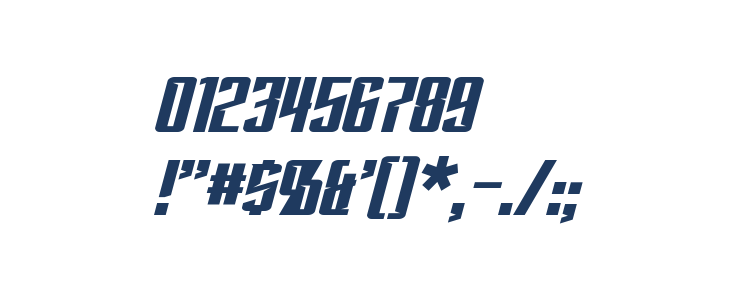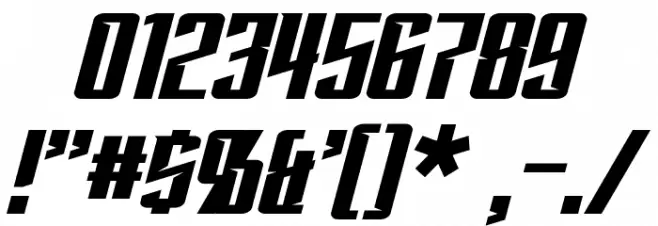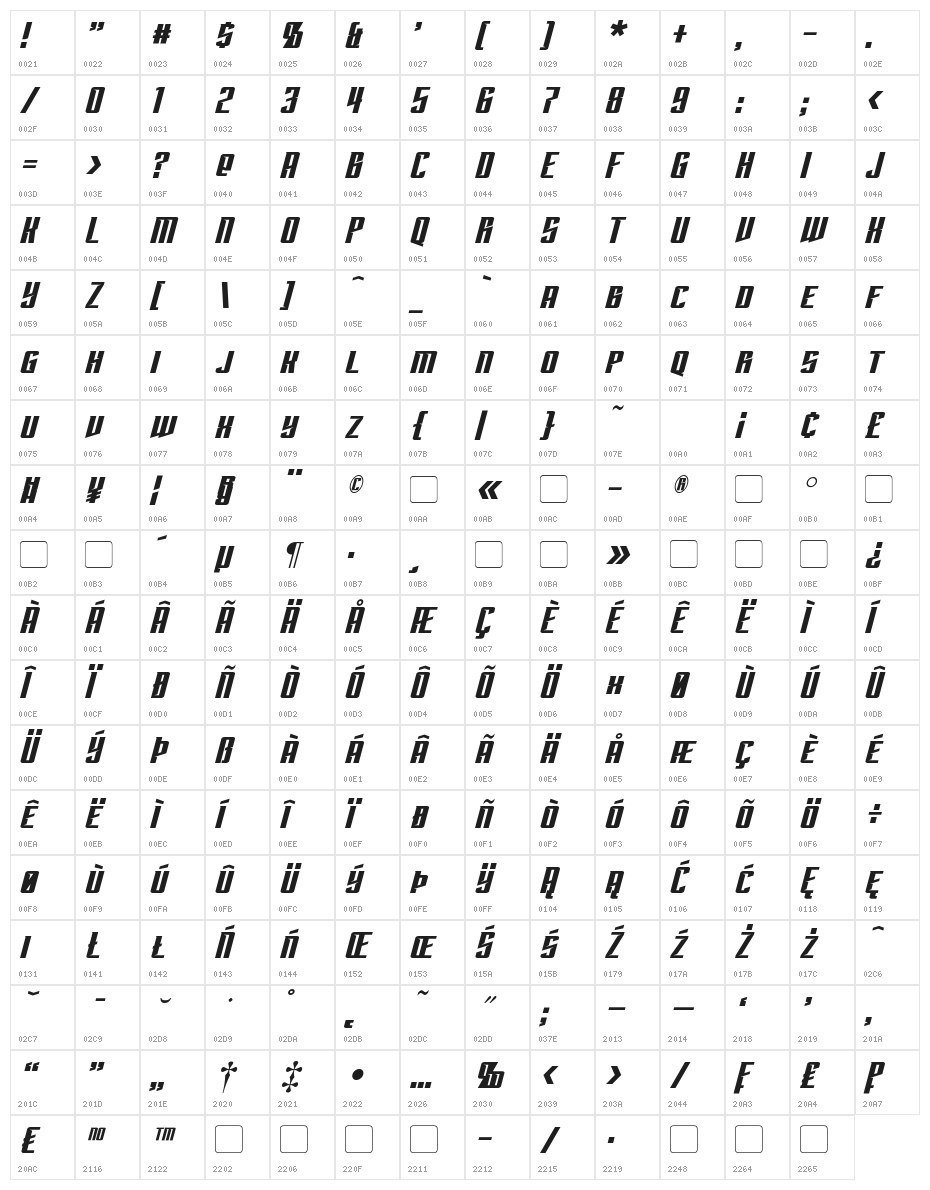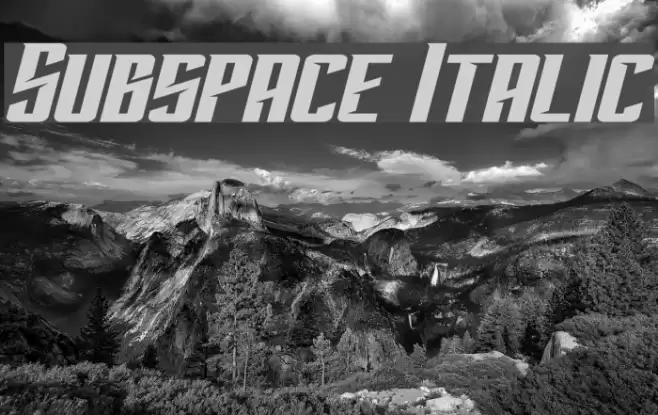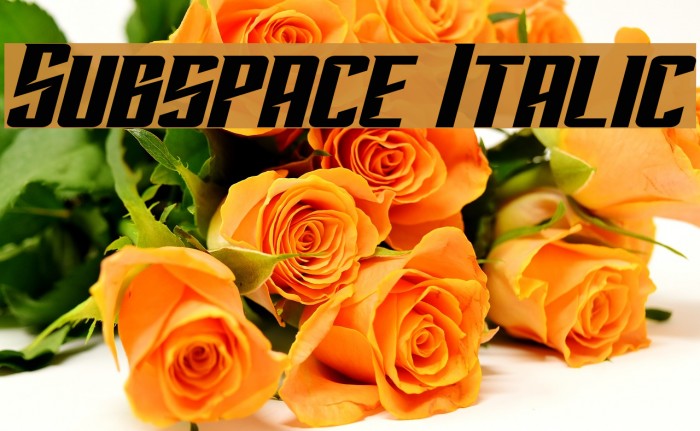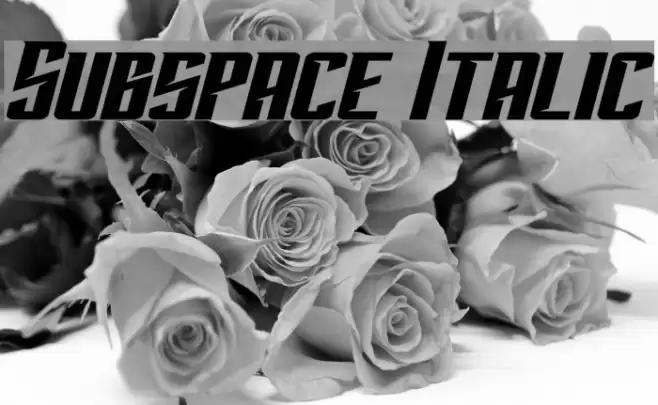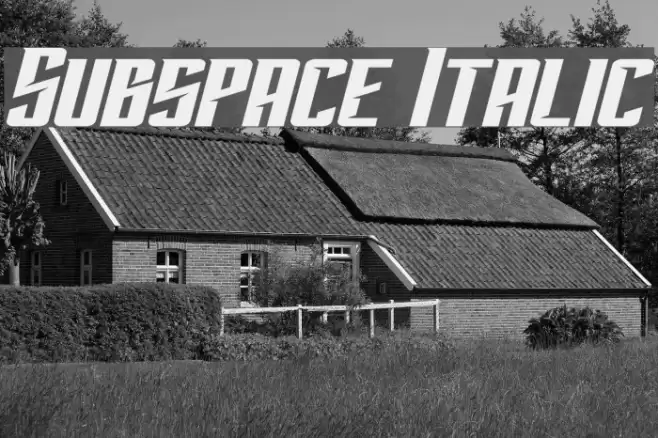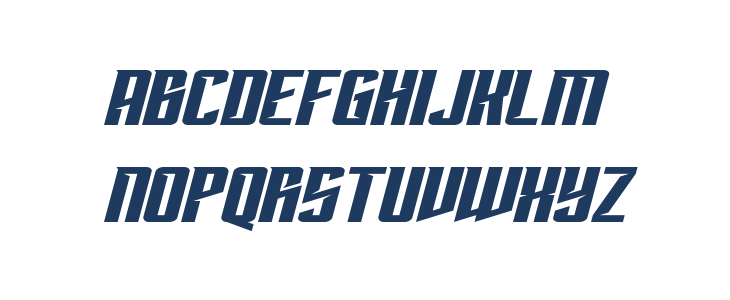
Subspace Italic Font
Subspace Italic Description
This font features a bold and dynamic design with a futuristic flair. The characters are sharply angled, giving a sense of motion and speed. The italic style enhances this effect, making it ideal for projects that require a modern and energetic look. The uppercase and lowercase letters maintain a consistent style, with clean lines and a slightly condensed form. The numbers and special characters are equally bold and stylized, ensuring uniformity across all text elements.
| Proposed Projects | Ideal for sci-fi themed projects, video game titles, sports branding, and dynamic posters. |